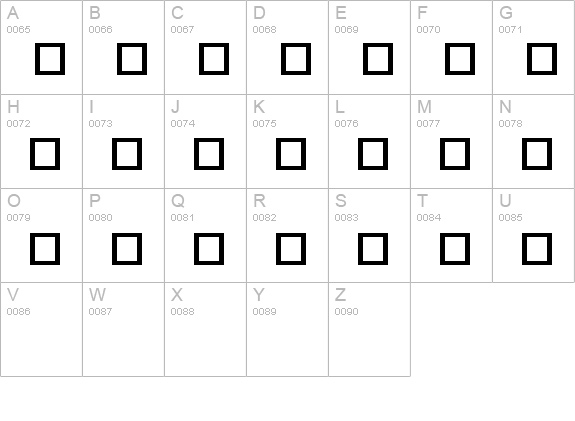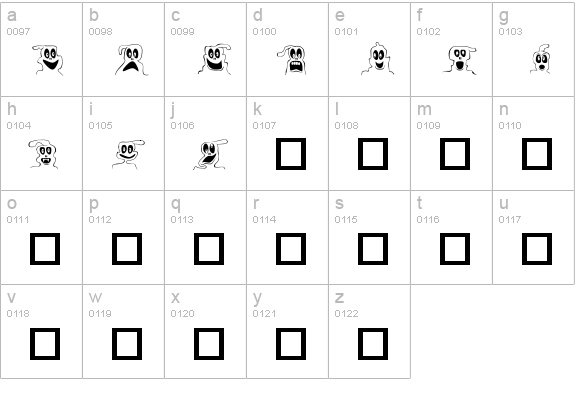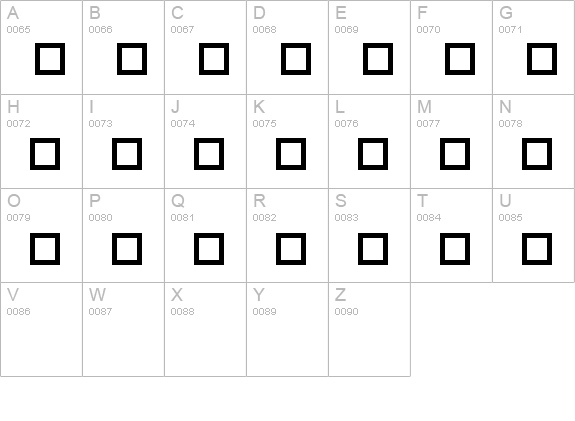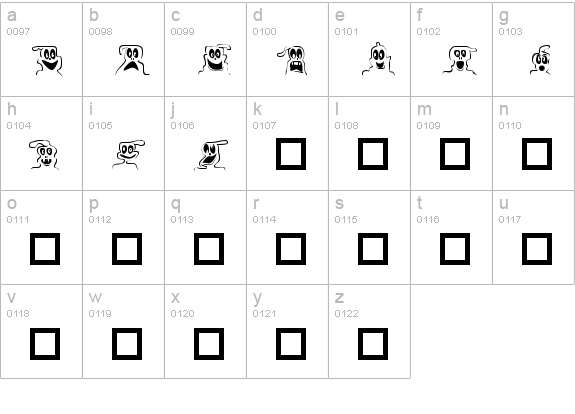
10 Lil' Ghosts Font Details
Introducing the whimsical and charming 10 Lil' Ghosts font, perfect for adding a playful touch to your Halloween-themed designs and projects. This spooky yet adorable font features ten friendly little ghosts as the characters, each with its own unique personality. From eerie to cute, these ghosts are sure to bring a fun and festive vibe to your creations. The 10 Lil' Ghosts font is not only creatively designed but also comes with a generous offer - it is available for free download at FontsMarket.com. Whether you're designing party invitations, greeting cards, posters, or social media graphics, this font is a delightful choice for adding a touch of ghostly fun. Embrace the spirit of Halloween with the 10 Lil' Ghosts font and let these lovable little spirits bring a touch of whimsy to your designs. Download it for free today and start creating spooktacular creations that are sure to enchant and delight!